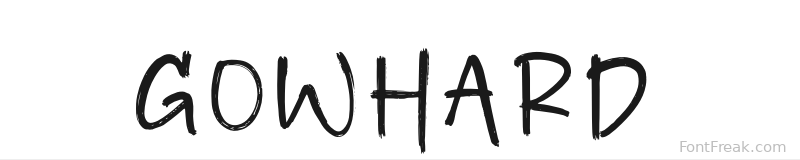
Gowhard
Gowhard, designed by Perspectype Studio in 2021, is a distinctive display font that captures attention with its unique, artistic flair. This font embodies a playful, handwritten style characterized by its bold stroke weight and slight irregularities, which add a personal touch to any design project. The strokes vary in thickness, creating a dynamic visual contrast that enhances readability while maintaining an artistic charm. The spacing between characters is well-balanced, ensuring that each letter stands out without compromising the overall flow of text.
Gowhard is particularly well-suited for a variety of creative applications. Graphic designers can utilize this font for eye-catching wedding invitations, where its casual elegance can evoke a sense of warmth and personal connection. Additionally, it works wonderfully for restaurant menus, lending a contemporary yet approachable vibe that can entice diners. The font also shines in promotional materials, such as flyers and posters, where its bold presence can effectively capture attention. Content creators can leverage Gowhard for social media graphics, giving their posts a unique, trendy aesthetic that resonates with audiences.
Targeted towards graphic designers, small business owners, and content creators, Gowhard offers versatility for both professional and personal projects. Its free license allows users to explore a range of creative possibilities without budget constraints.
What sets the Gowhard font apart is its ability to blend artistic expression with functionality. Its handwritten style provides a sense of authenticity, making it ideal for projects that aim to convey a personal touch. Whether you’re crafting a heartfelt invitation or a striking promotional piece, the Gowhard font free download can elevate your design, making it a standout choice for any creative endeavor.